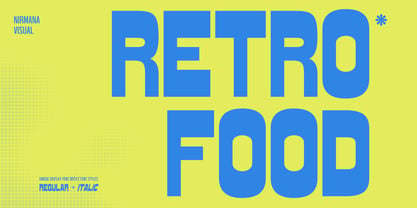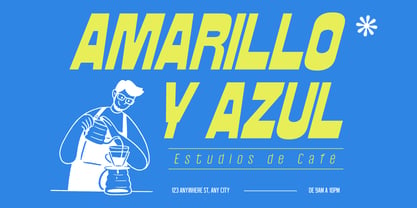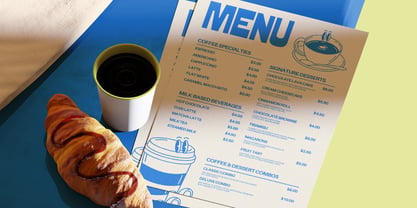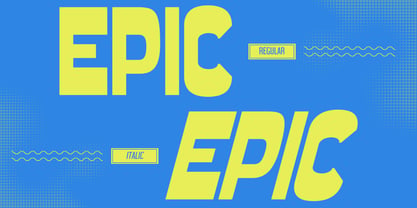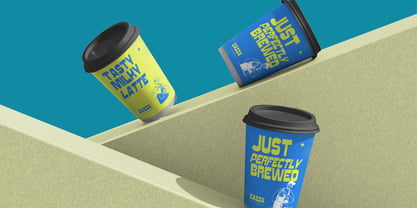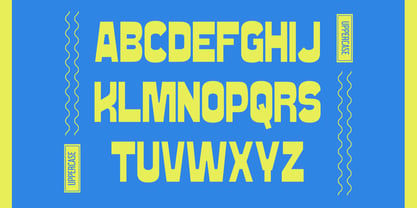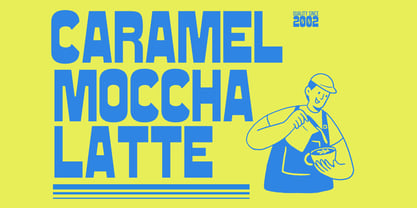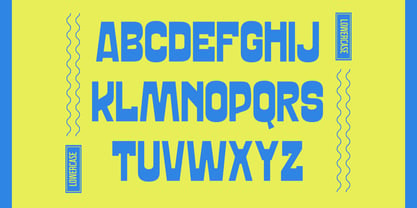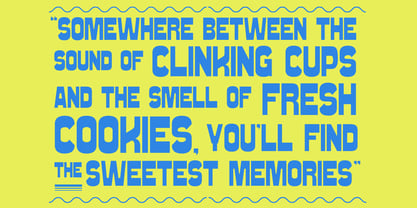
Retro Food
by Nirmana Visual
The Retro Food Font Family was designed by Sigit Dwipa and published by Nirmana Visual. Retro Food contains 2 styles and family package options. More about this family
Retro Food is a playful and appetizing font designed perfectly for food logos, restaurant branding, and packaging. Its smooth curves and friendly letterforms create a warm, delicious impression that instantly attracts attention. Ideal for bakery signs, café menus, and snack packaging, Retro Food brings a fresh and tasty personality to every design. Available in regular and italic style, it adds flavor and creativity to any food-related brand.
Designers: Sigit Dwipa
Foundry: Nirmana Visual